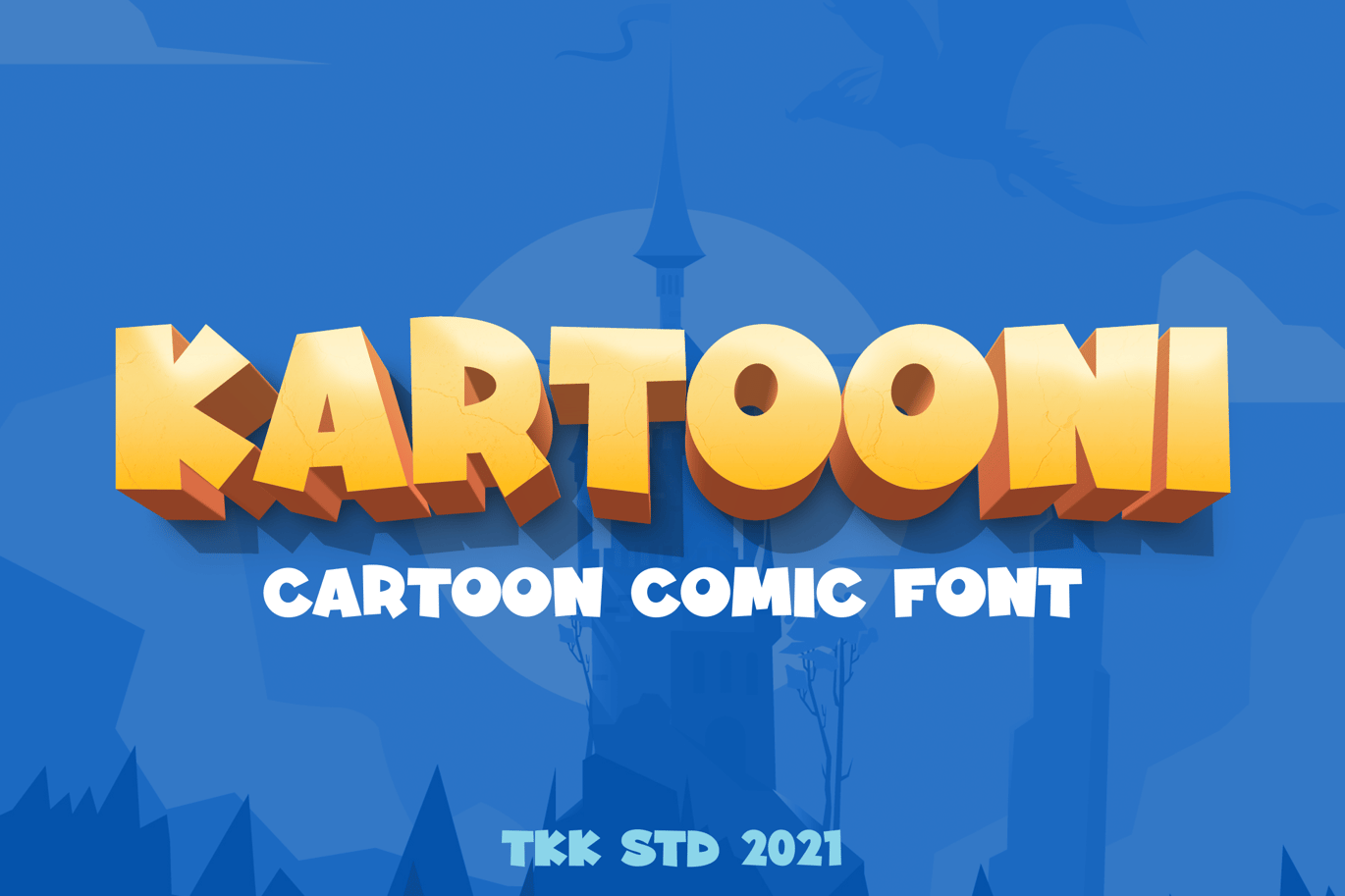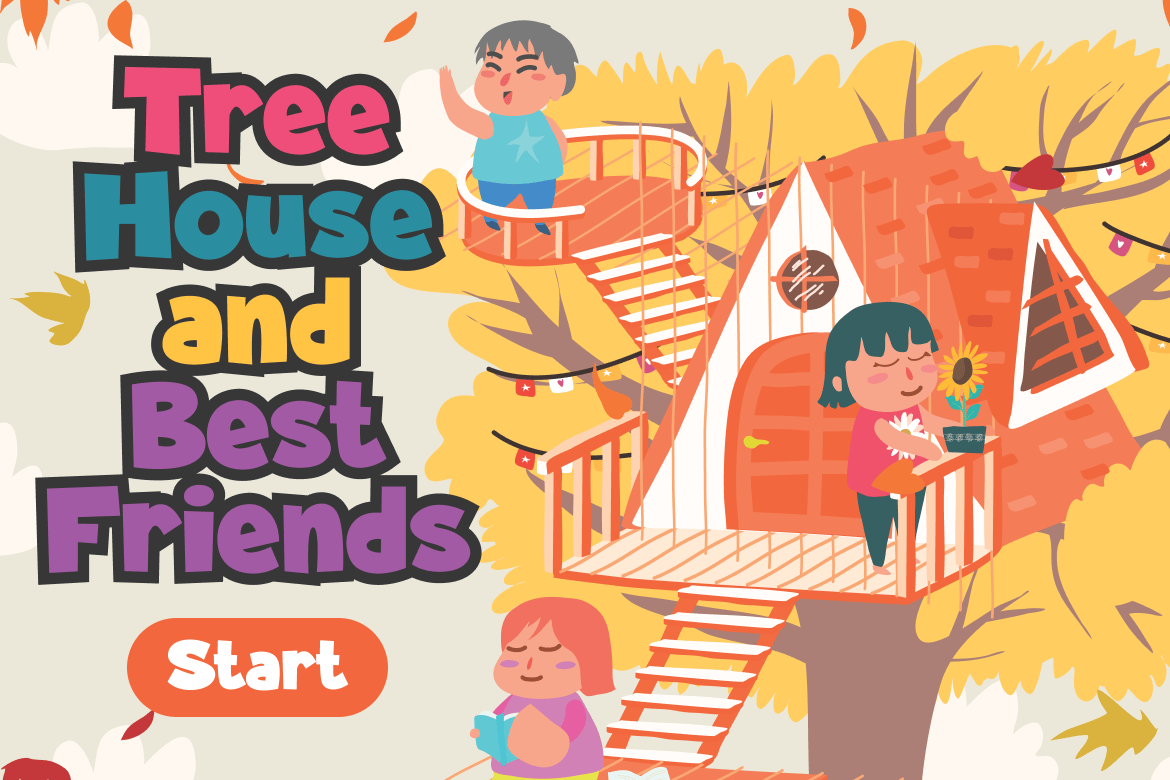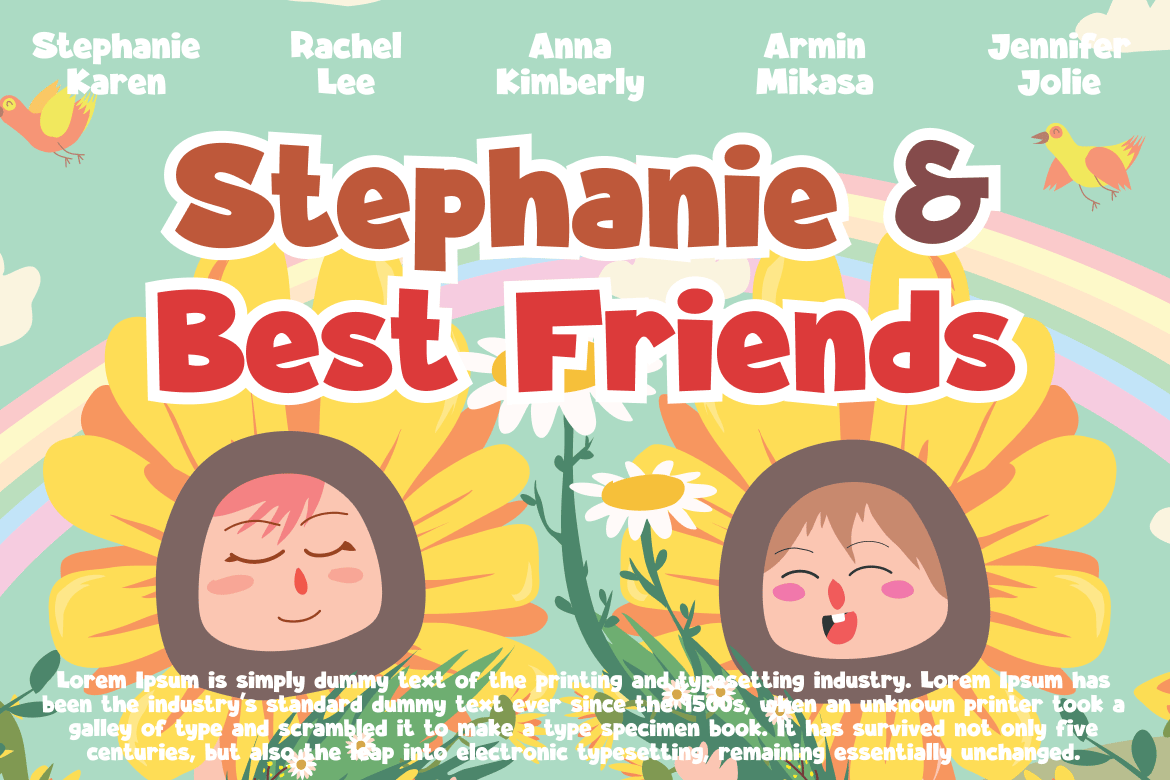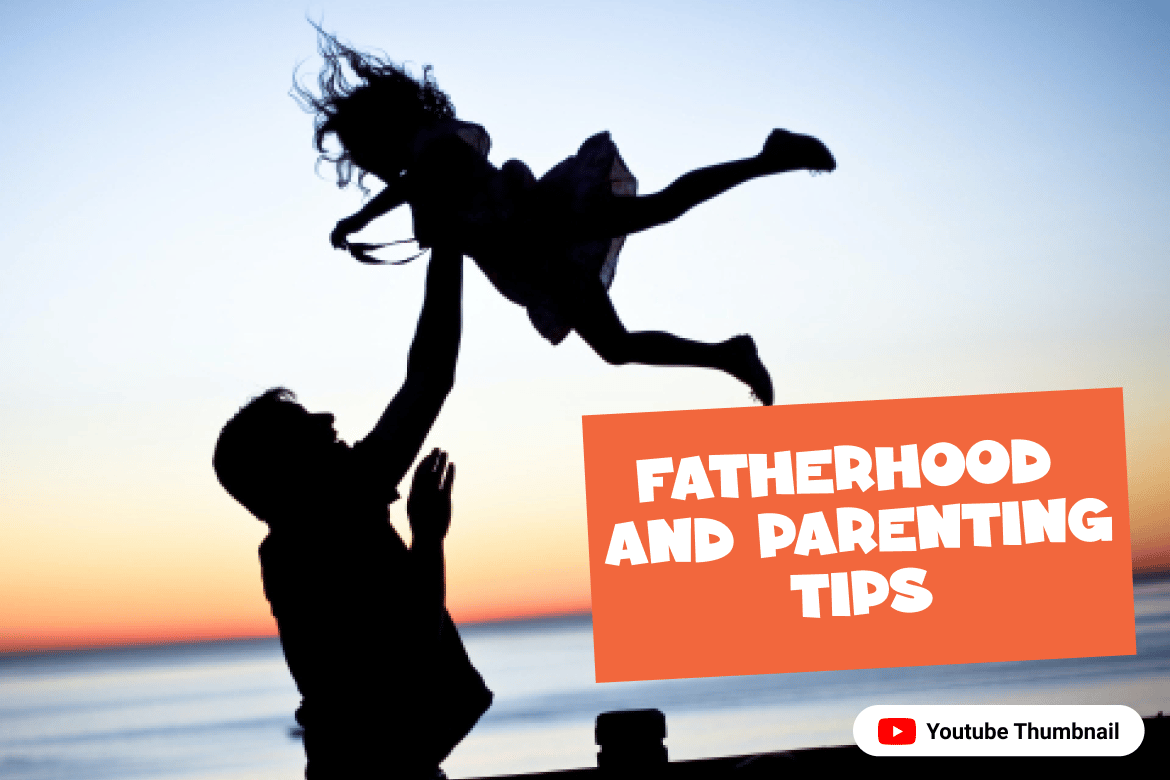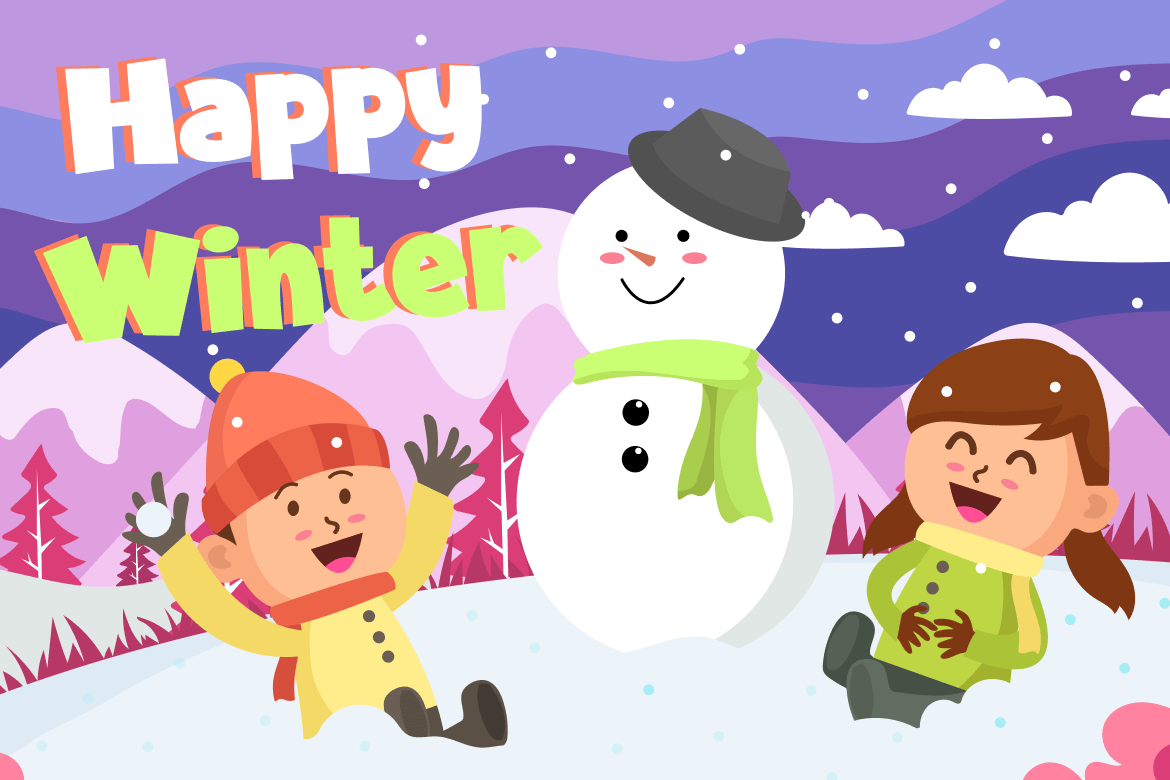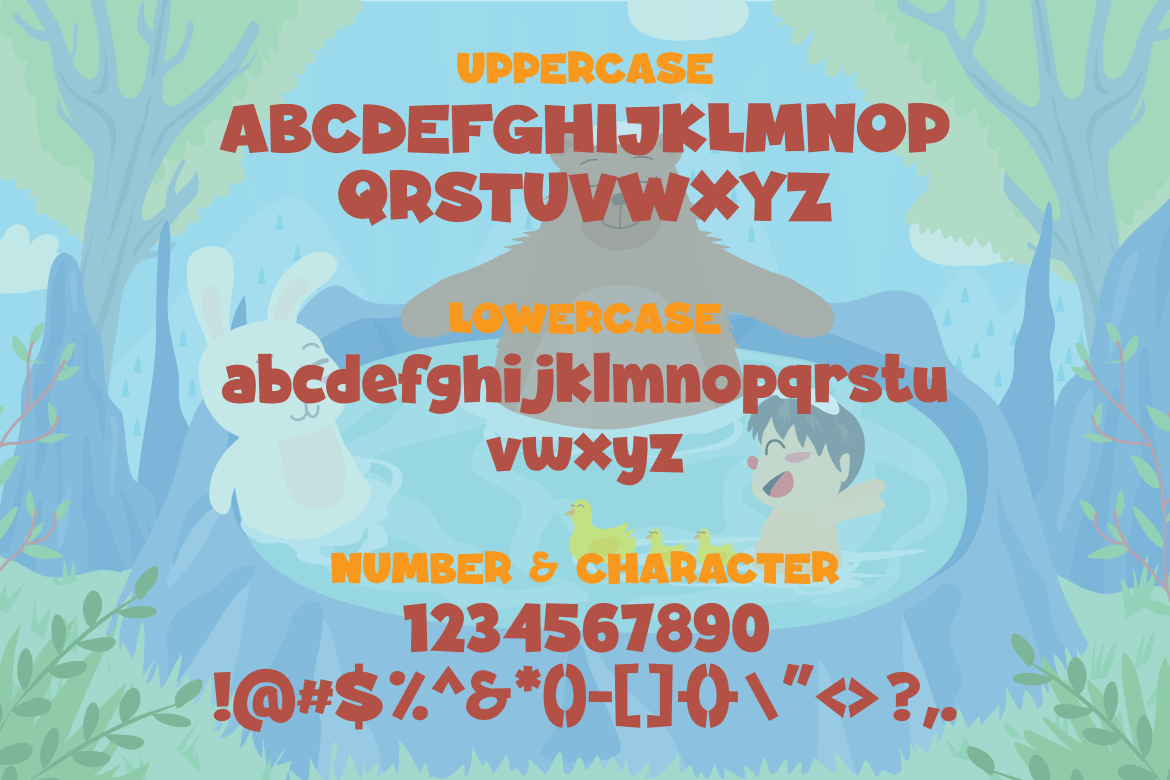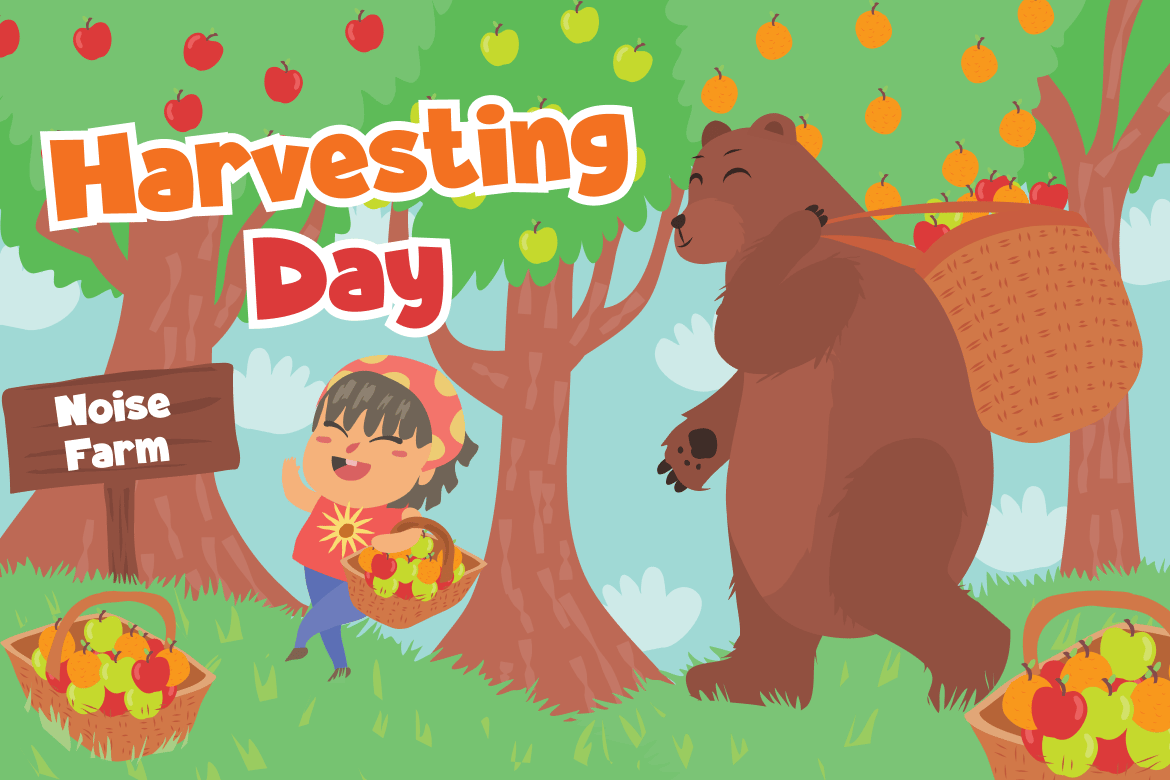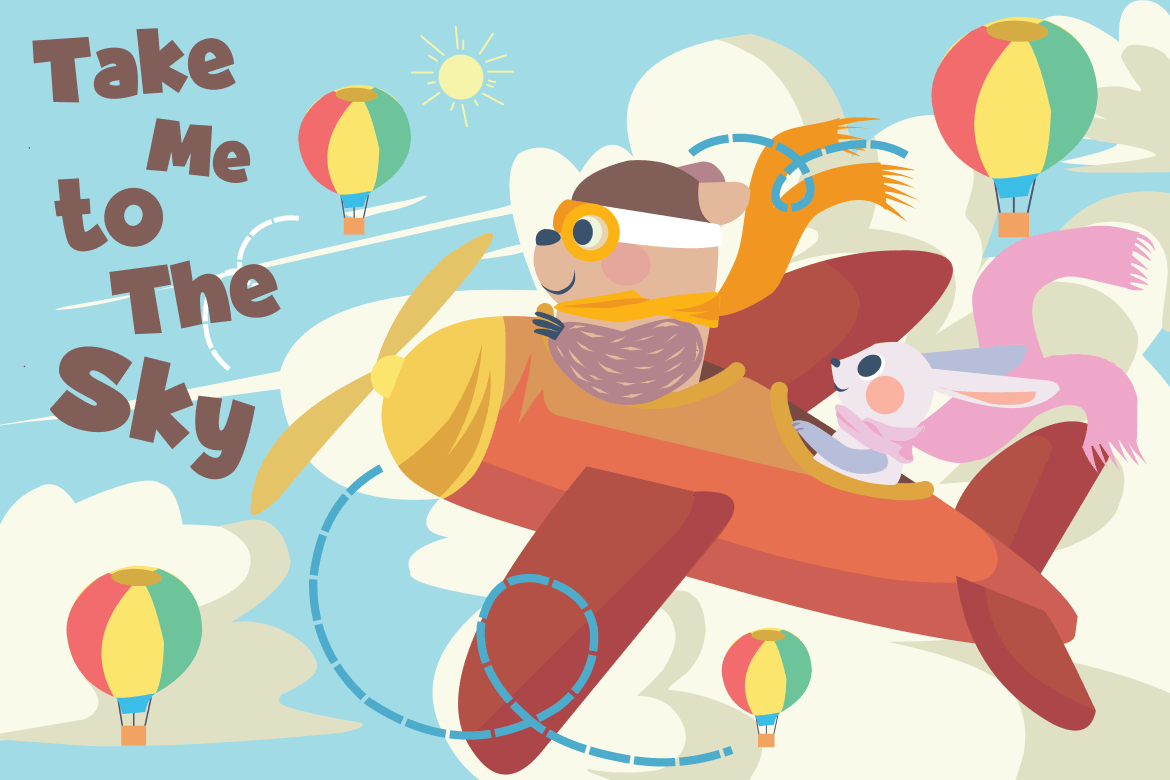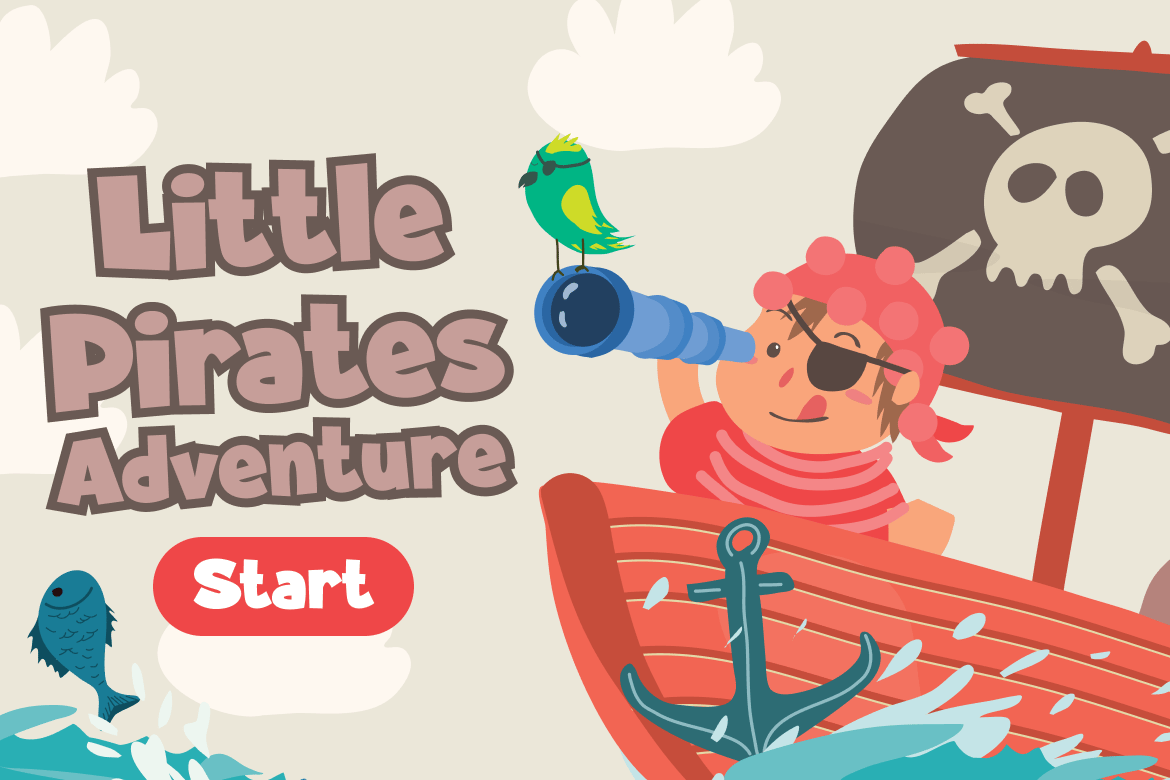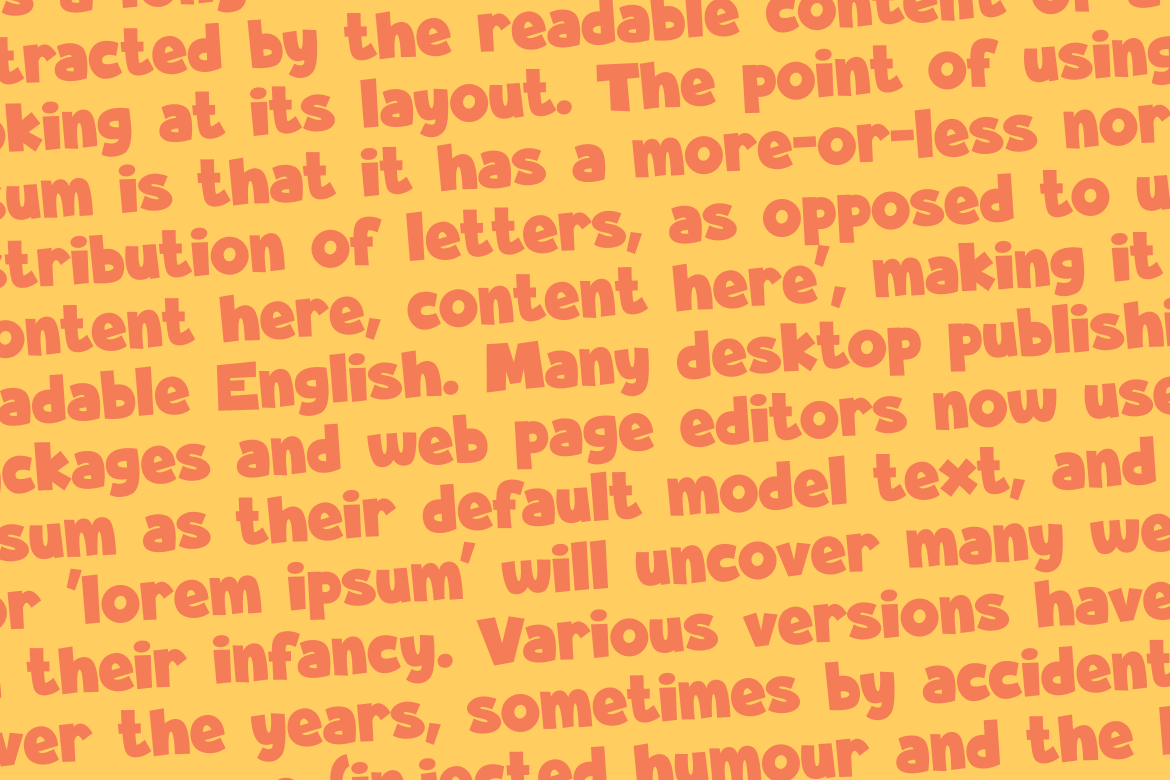
Kartooni – Cartoon Comic Font
Kartooni – Cartoon FOnt
It speak for itself. Kartooni bring the classic cartoon feel on the word written.
Suit perfectly for Online Games, poster, movie title, fast food menu, magazine, youtube covers, youtube thumbnails, social media page covers and so on…